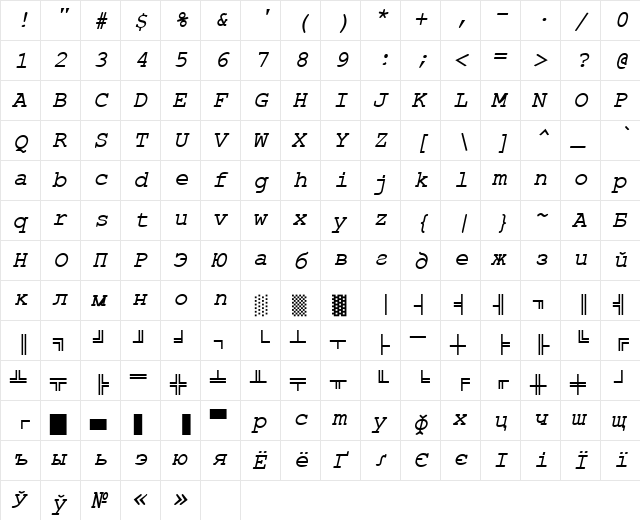
ER Kurier 866 Italic
Design Context for ER Kurier 866 Typeface
ER Kurier 866 offers clean, dependable letterforms without strong stylistic allegiance, making it a practical choice for designers who need flexibility. Its italic angle brings a sense of urgency and motion to the letterforms.
Pro Tip: Try ER Kurier 866 for annotation and caption copy alongside an upright companion — the contrast in angle creates a dynamic but ordered typographic system.